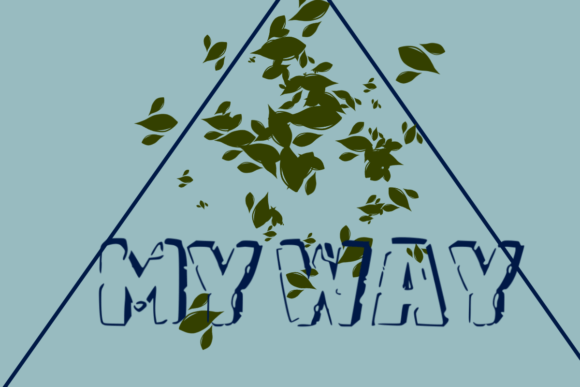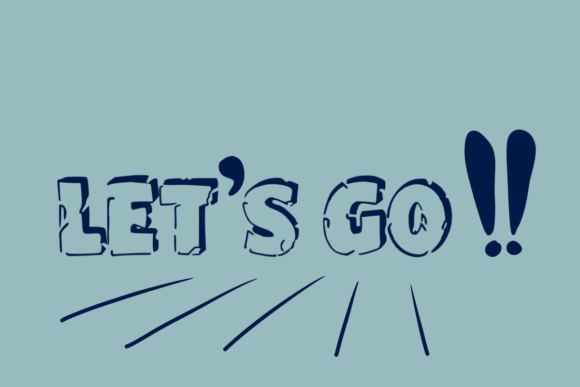
Unleash Your Creativity with Broken Ristea Font
Have you ever been in the middle of a design project, staring at a blank canvas, and suddenly, a spark of inspiration hits you? That’s exactly what happened to me when I first laid eyes on the Broken Ristea Font. Its chunky letters and playful vibe instantly made me want to experiment and bring it to life in my designs.
Broken Ristea Font is a fun and cool display font that’s perfect for adding a touch of personality to your projects. Its bold and eye-catching design makes it ideal for headlines, titles, and any other element where you want to grab attention. Whether you’re a seasoned designer or just starting out, the Broken Ristea Font is a valuable addition to your toolkit.
Broken Ristea Font Key Features
- Font Family: Broken Ristea is a unique, handwritten font family designed for creative projects.
- Size: The font family includes multiple weights, ranging from 100 to 900, allowing for a wide range of design applications.
- Resolution: Optimized for high-resolution displays, ensuring crisp and clear text at various zoom levels.
- Unique Characteristics: Broken Ristea features a distressed, hand-drawn aesthetic with irregular letterforms and subtle texture, adding a touch of imperfection to designs.
Designer Review: Broken Ristea Font
First off, I want to say that I’m a big fan of unique and quirky fonts, and Broken Ristea definitely delivers on that front. ✨ The font’s distressed, broken aesthetic gives it a really cool, edgy vibe that’s perfect for grunge or alternative designs. ✨ The irregularities in the letterforms add a lot of character and make the font feel more human and less perfect.
However, there are a few limitations to the font that are worth noting. ⚠️ One of the main issues is that the font is not very legible at small sizes. The broken edges of the letterforms can make it difficult to read the text, especially if it’s not bolded or enlarged. ⚠️ Additionally, the font may not be suitable for body text, as it can be overwhelming and difficult to read in large quantities.
Overall, I think Broken Ristea is a great addition to any designer’s toolkit. While it may not be perfect for every project, it’s definitely a great choice for designs that need a bold, edgy look. Just be sure to use it sparingly and in the right context.
- Unique, distressed aesthetic
- Perfect for grunge or alternative designs
- Irregular letterforms add character and personality
- Not suitable for body text or small sizes
- May be overwhelming in large quantities
To get the most out of the Broken Ristea font, consider the following tips:
- Use the font in combination with bold or italic styles to create visual interest.
- Experiment with different font sizes and line heights to create a unique visual effect.
- Use the font to create a bold, statement-making headline.
The Broken Ristea font is well-suited for:
- Headlines and titles.
- Em
Alternatives to Broken Ristea Font
The Lobster Font is a casual, cursive font ideal for headings and titles. It has a more relaxed feel compared to Broken Ristea Font, which is more rugged and distressed.
When to use: Use Lobster Font for headings and titles that require a casual, yet elegant feel.
Comparison: While Broken Ristea Font has a more distressed look, Lobster Font has a softer, more elegant appearance.
The Great Vibes Font is a stylish, cursive font that adds a touch of sophistication to any design. It has a similar feel to Broken Ristea Font, but with a more refined and elegant appearance.
When to use: Use Great Vibes Font for headings and titles that require a touch of sophistication and elegance.